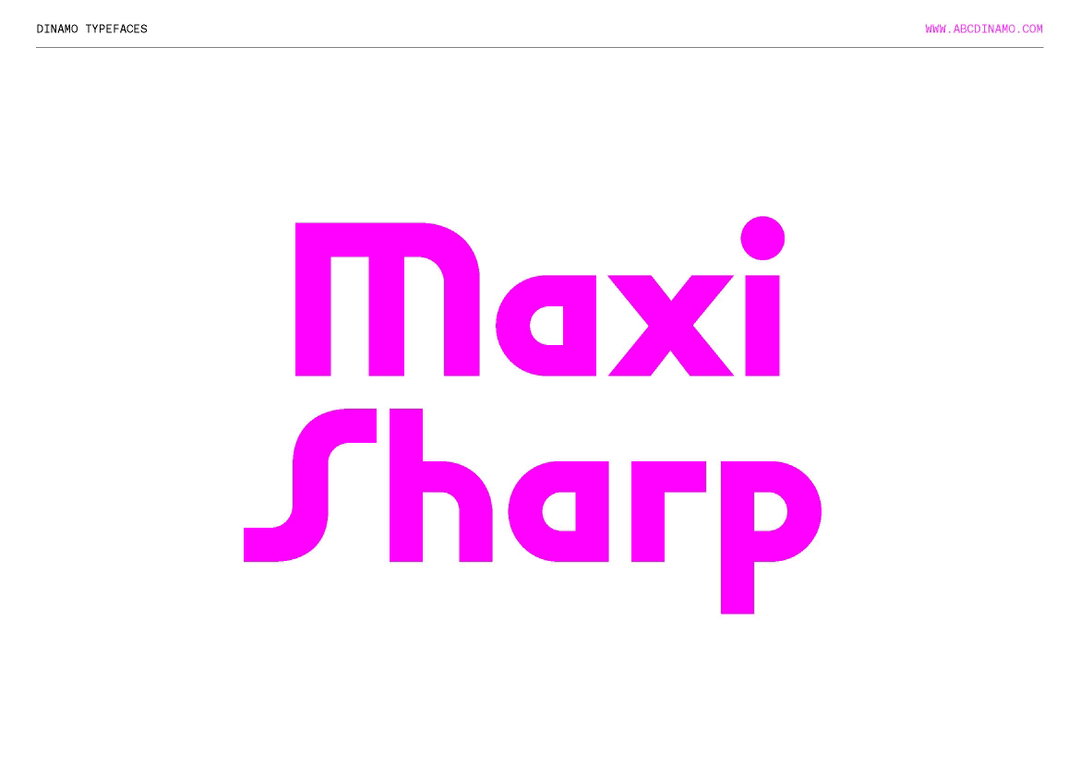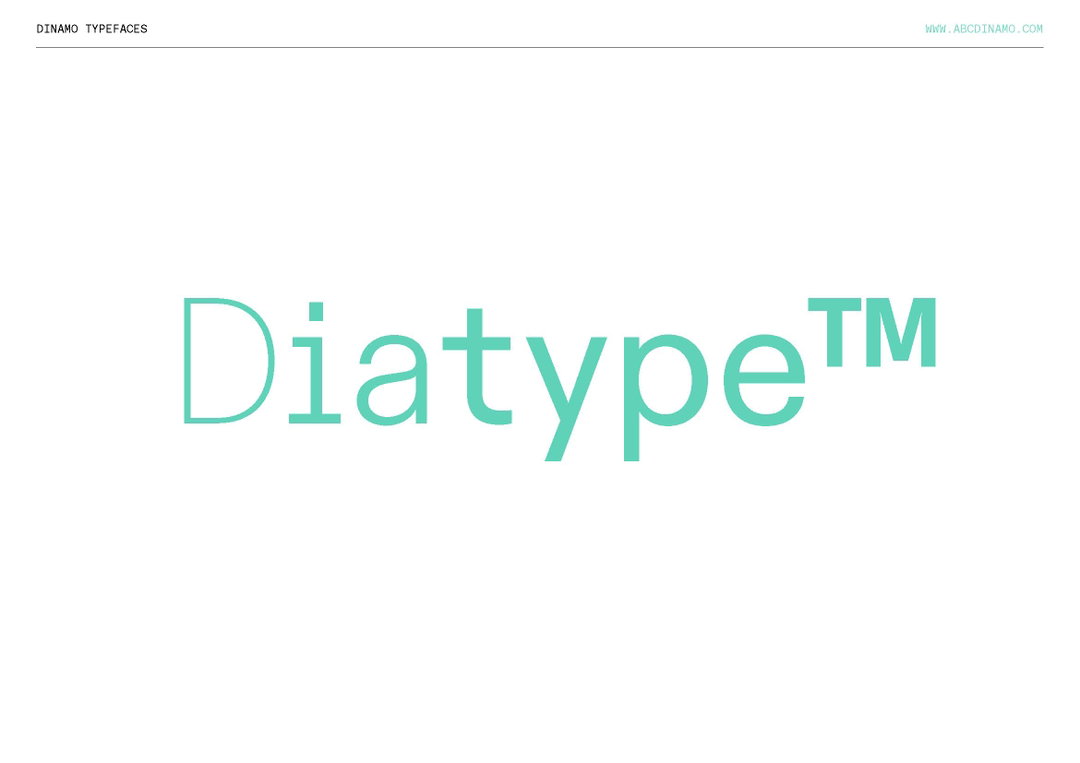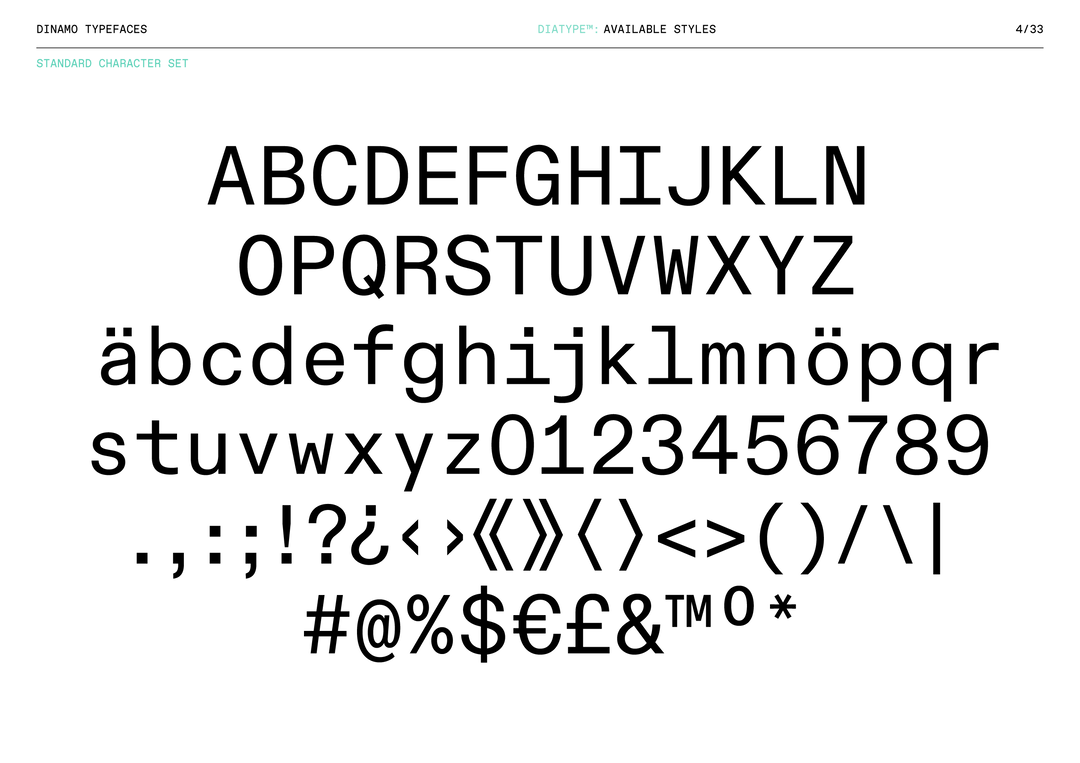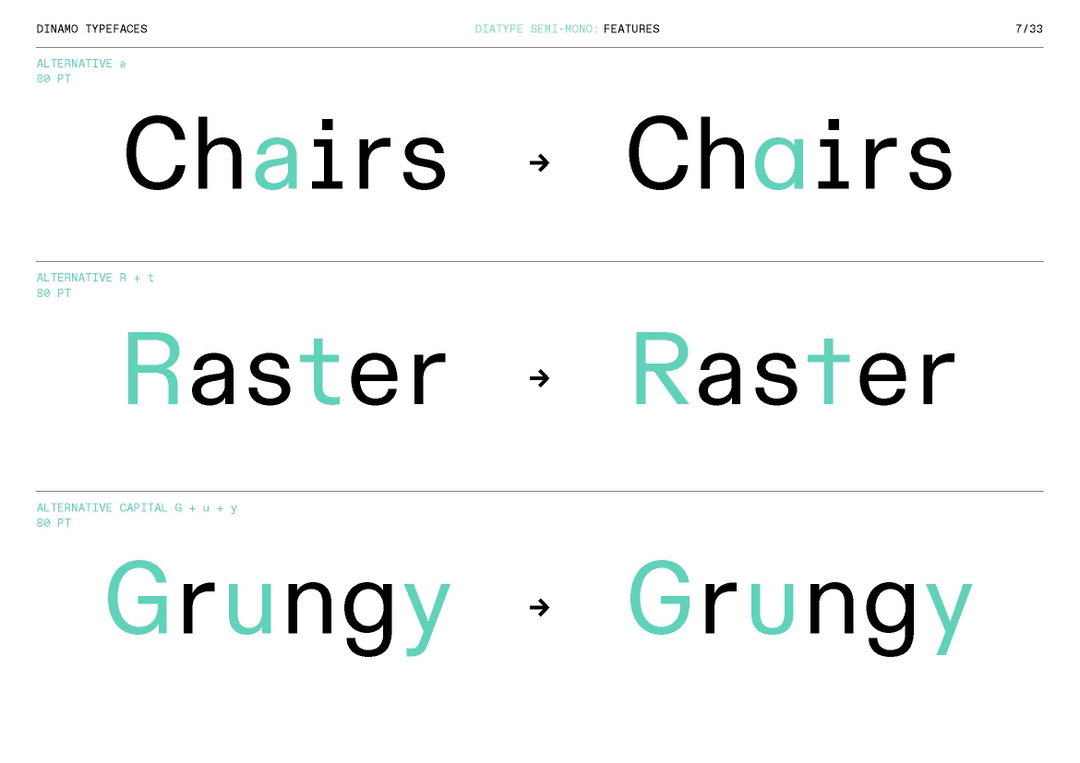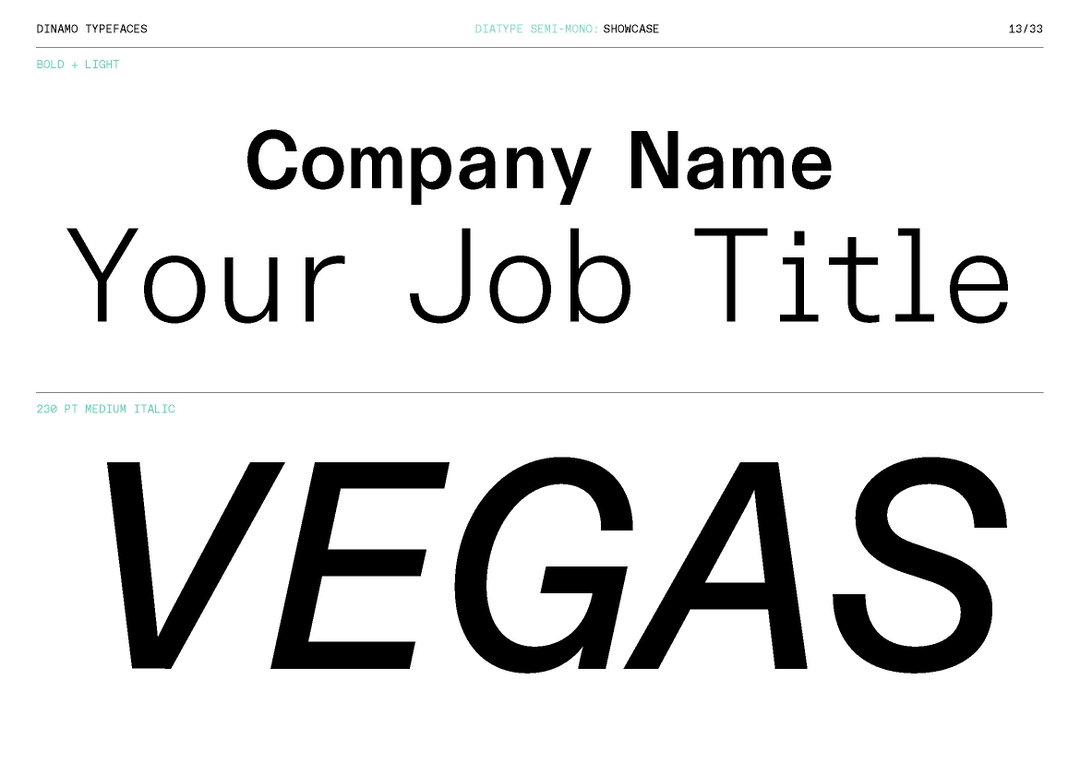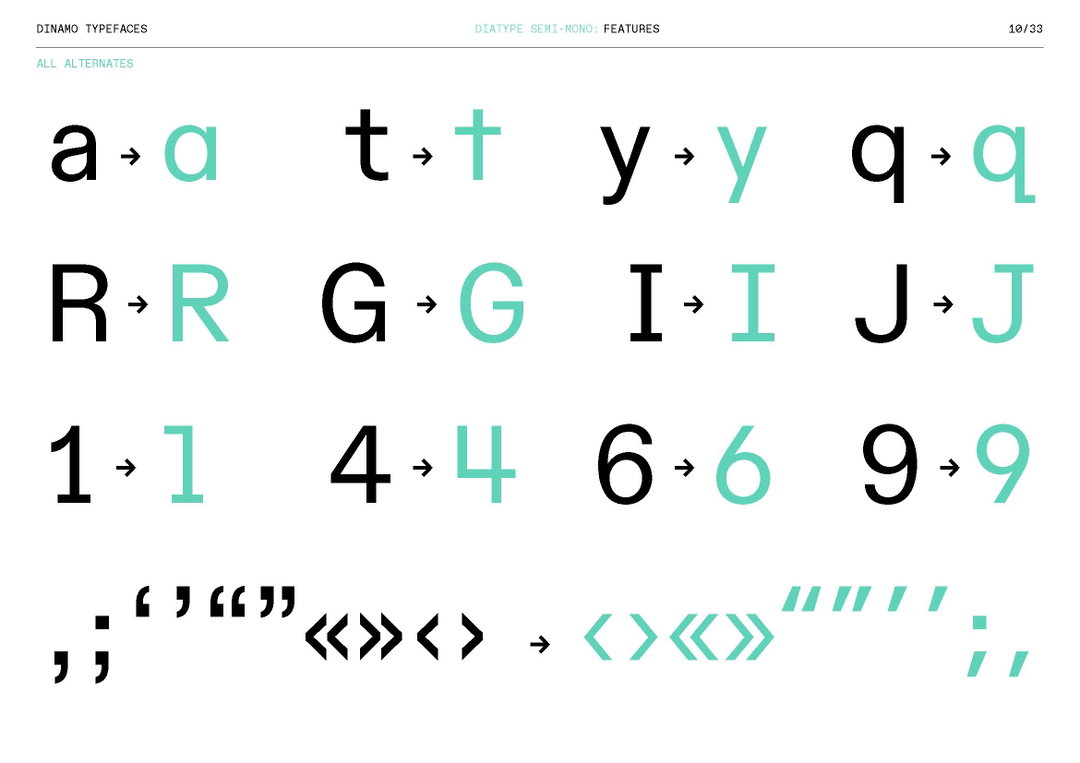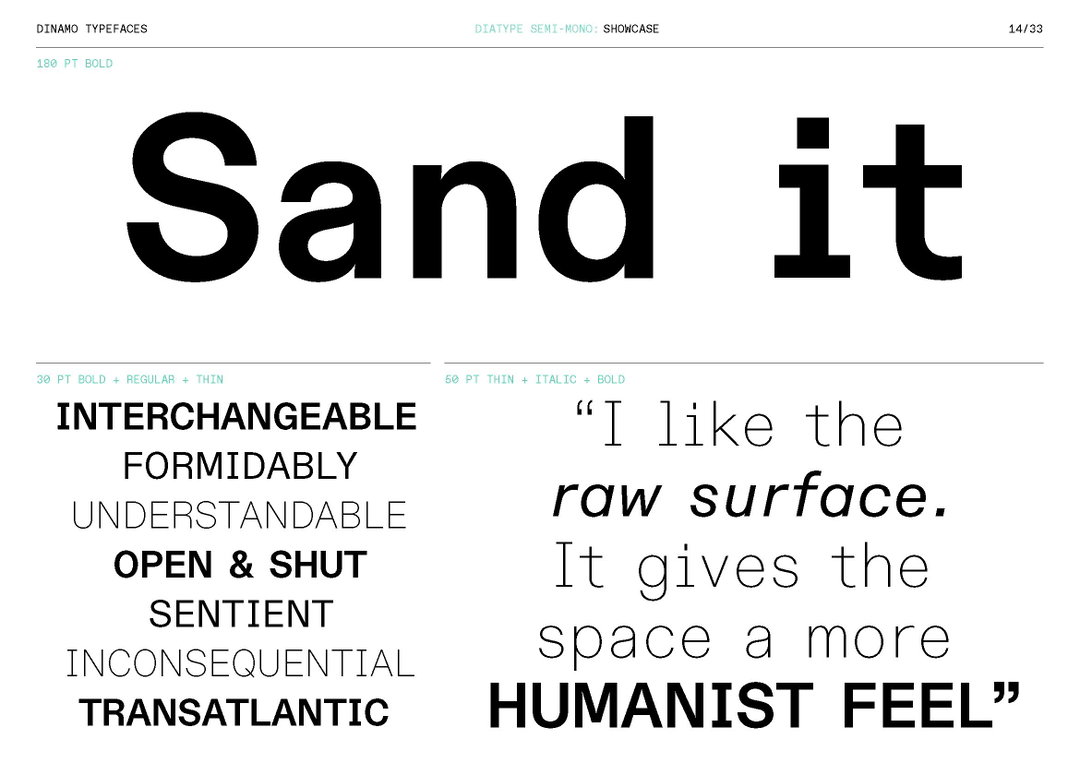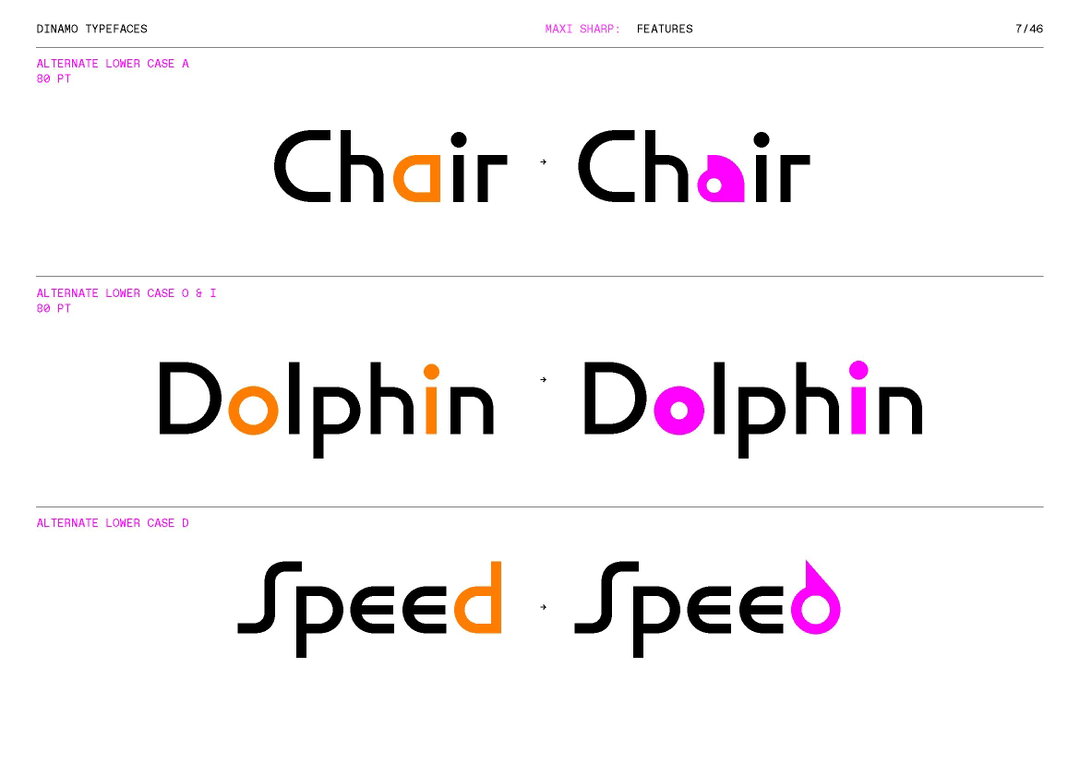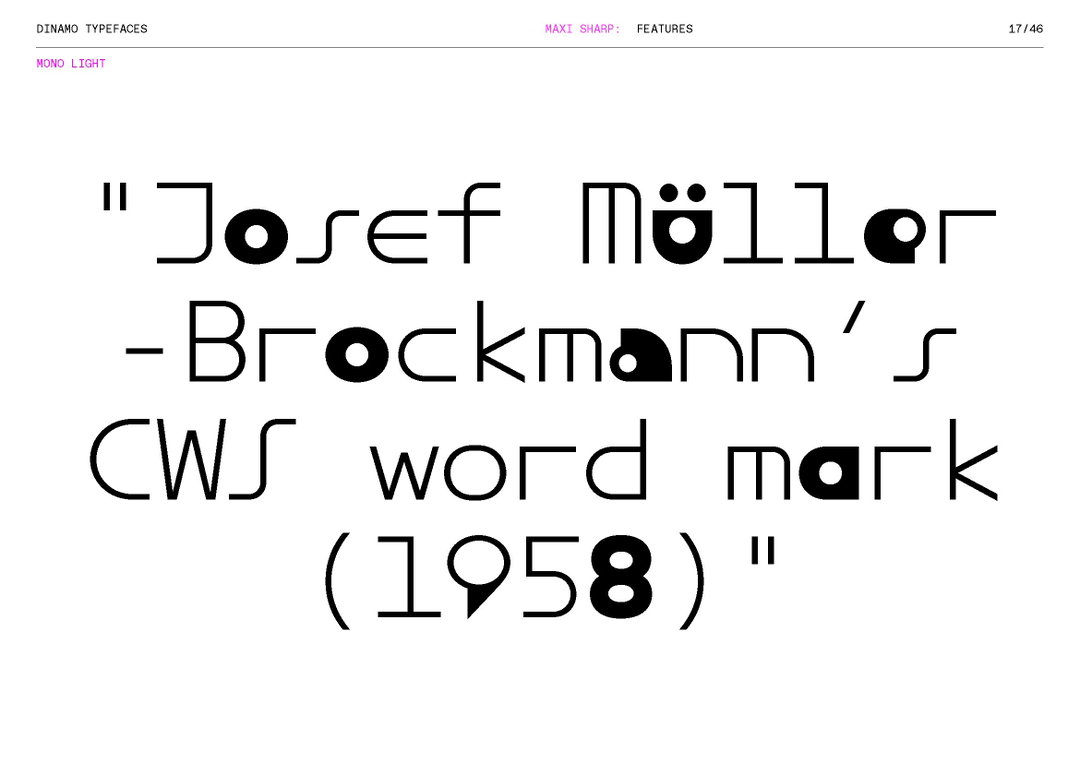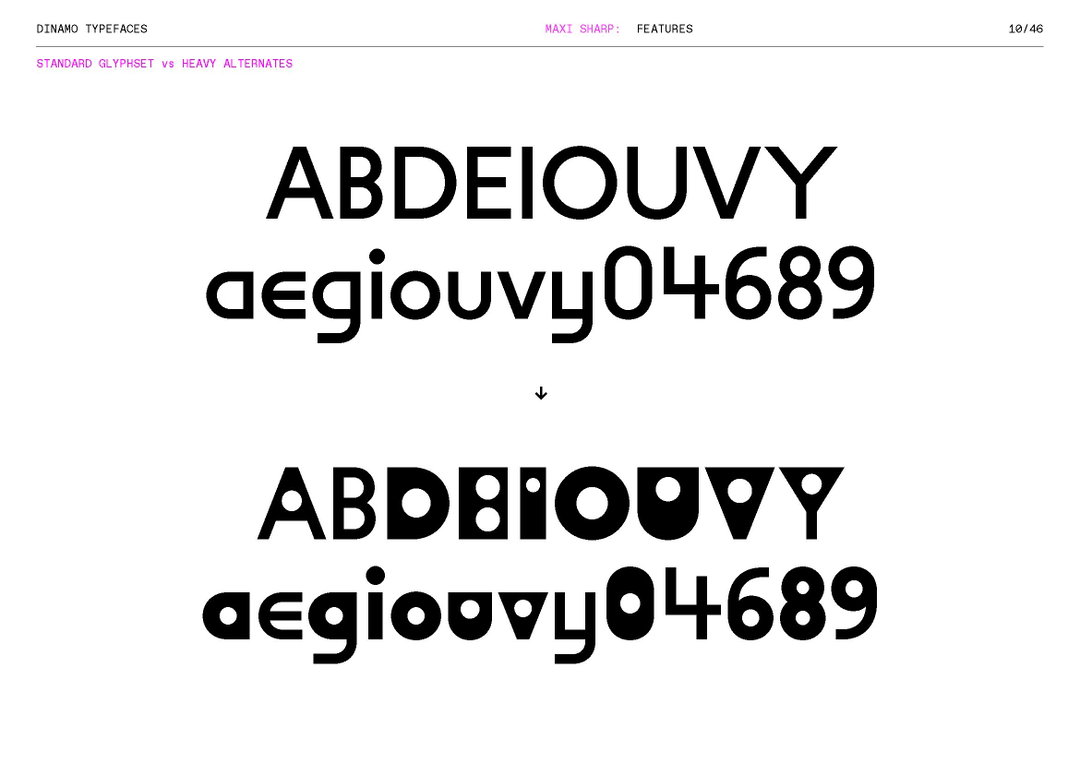
Dinamo gets a revamp and releases two new font families, ABC Maxi and ABC Diatype
In a new and very exciting relaunch, Swiss type foundry Dinamo welcomes a new era of typographic verve in the form of a jam-packed new website. Amidst a multitude of new changes (including how it deals with licensing and a new section dedicated strictly to students with slashed prices) the type foundry, founded by Johannes Breyer and Fabian Harb, also launches two new typefaces, ABC Maxi and ABC Diatype.
The former, Johannes tells us, is a “heavily-engineered yet warm and witty type system of spaghetti movement and angular lines.” Its bendy curves are informed by the long history of the International Style, first arising on the design scene in the 1920s and growing in leaps and bounds particularly during 1950s Switzerland. Clean, readable and in signature Dinamo style, variable too, ABC Maxi is a bold, newly exaggerated typeface enhanced by VF technology. It's currently available in four subfamilies: Round, Round Mono, Sharp and Sharp Mono.
Secondly, ABC Diatype is a more discreet family to its aforementioned sibling. It started out as an “obsessive exploration of the Swiss Neo-grotesque genre” and has been in the works for many years already. Tried and tested by a bunch of friends over time, the typeface is now available for public release, marking the type foundry’s first “warm hearted grotesque,” offering a slightly friendlier alternative to its previous releases, Whyte Standard or Monument Grotesk for example. Filling a new spot in Dinamo’s extensive library, this typeface doesn’t seek too much attention. Subtle in its purpose and readability, Johannes notes how it’s ideal for text or screen usage and ultimately, harks back to the days of pre-digital typesetting machines.
ABC Diatype
ABC Maxi